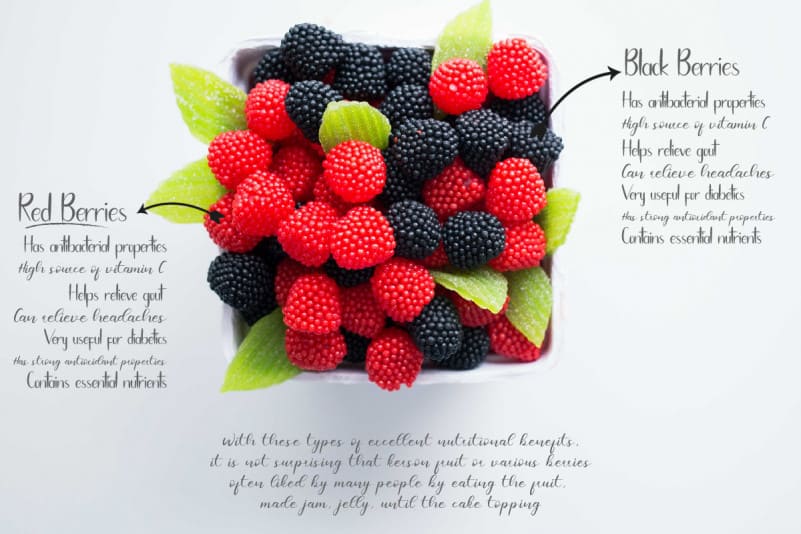
Famous Idol Script Font
Famous Idol Script Font is an exclusive handmade script font with unique look that is rough. elegant, sophisticated, stylish, textured and classic calligraphic style. It has a stunning characters set, perfectly managed with well spaced and kerning.
Famous Idol Script Font will be great for any projects including : branding and logo (with extended license), stationery, business card, signage, flyer, brochure etc. Almost all industries will be match for this typeface: wedding, events, real estate, architect, law firm, florist, gardening, makeup artist, travel, hotel, musician etc